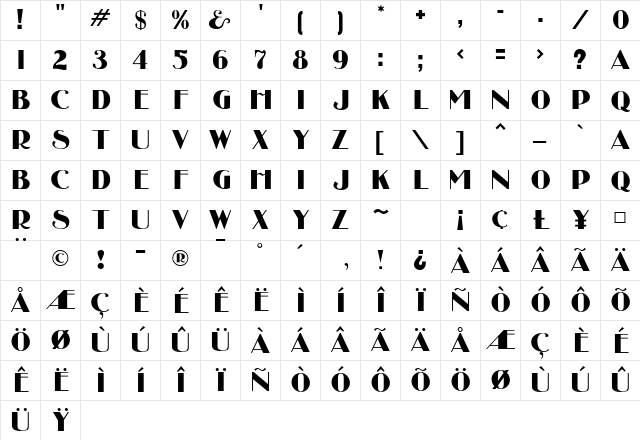
Uncle Bob MF Regular Free Font
Uncle Bob MF Regular
Uncle Bob MF Family
Design Context for Uncle Bob MF
Uncle Bob MF is a composed and adaptable typeface that performs quietly and consistently across a wide range of design contexts.